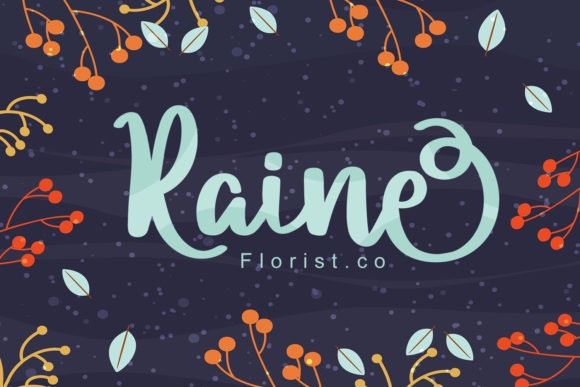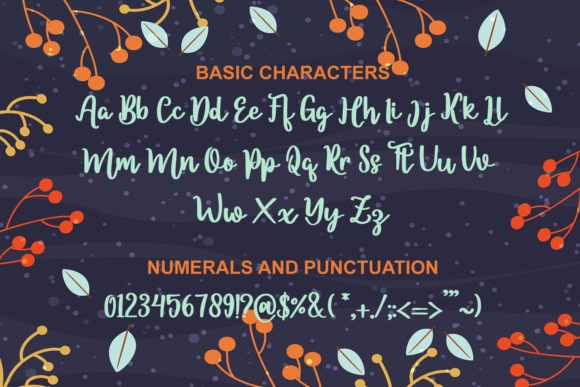
Agencies Solutions Font
AGENCIES SOLUTIONS Font is a handwritten display font with a strikingly authentic feel font is our new item that is suitable for your Posters. We Provide You one of the best Stylish Hand Written Script. Great for Logo, Poster, Sticker, Jerseys, Invitation Cards, Brochure, etc.